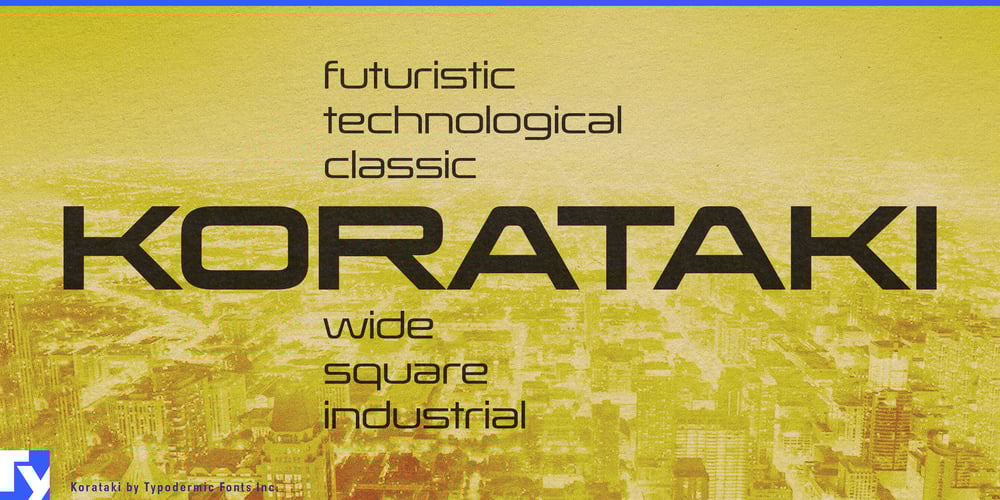
Korataki Font Family was designed by Ray Larabie and published by Typodermic. Korataki contains 14 styles and family package options. Korataki: where the future of yesterday meets the vanguard of tomorrow. This isn’t just a typeface—it’s a time-bending marvel that captures the essence of 1970s ultramodernism and propels it into the 21st century with breathtaking audacity.Drawing inspiration from the iconic China/Chimes, Korataki doesn’t merely pay homage—it revolutionizes. Its wide, industrial silhouette commands attention, each character a monumental testament to the power of simplicity. This is a font that doesn’t whisper modernity; it broadcasts it across time and space with unapologetic boldness. Korataki’s design is a masterclass in visual efficiency. Its clean lines and geometric precision evoke the sleek contours of retrofuturistic architecture and the smooth surfaces of imagined technologies. Each letterform stands as a beacon of clarity, cutting through the noise of conventional typography with laser-like focus.But Korataki is more than just a pretty face. With seven distinct weights and their italic counterparts, it’s a chameleon of contemporary design. Need to convey the cool confidence of a tech startup? Korataki’s got you covered. Want to infuse your vintage-inspired project with a dash of retrofuturism? Korataki delivers with style to spare. The OpenType alternates for A, G, Q, and 4 aren’t just features—they’re secret weapons in your design arsenal. These variations allow you to fine-tune your message, adding subtle nuances or dramatic flair as needed. It’s like having a typographic Swiss Army knife at your disposal, ready to tackle any design challenge with panache. Korataki’s linguistic prowess is as impressive as its visual impact. Supporting a vast array of Latin-based European languages and venturing into Cyrillic territories, it’s a global communicator par excellence. From the bustling streets of Moscow to the sun-drenched plazas of Madrid, Korataki speaks the language of ultramodernity with fluency and flair.Ready to catapult your designs into a bold new era? Let Korataki be your vehicle of choice. It’s a portal to a world where the sleek aesthetics of yesteryear’s future collide with the cutting-edge demands of today.